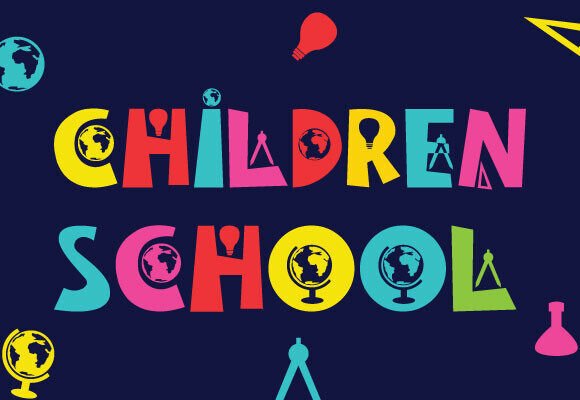
Introducing the Delightfully Enchanting “Children School” Font
The world of typography has just gotten a whole lot more playful with the introduction of the “Children School” Font. This charming typeface is specifically designed to capture the essence of playful innocence and childhood whimsy, making it an ideal asset for kids-centric and educational ventures. In this article, we’ll take a closer look at the inspiration behind this delightful font, its features, and how it can be used to add a touch of magic to your projects.
The Inspiration Behind “Children School” Font
The “Children School” Font takes inspiration from the youthful universe of handwritten letters and doodles, creating a delightful repertoire of characters that burst with merriment. The font’s creator aimed to mirror the charming vibrancy of a child’s imaginative mind, bringing a sense of wonder and excitement to the world of typography. By drawing from the carefree and creative world of childhood, this font embodies the spirit of imagination and playfulness.
Key Features of “Children School” Font
- Playful and Whimsical Design: The font features a unique and enchanting design that is sure to capture the attention of children and adults alike.
- Handwritten Style: The “Children School” Font has a handwritten style that gives it a personal and friendly feel, making it perfect for educational materials, children’s books, and other kids-centric projects.
- Variety of Characters: The font includes a wide range of characters, including letters, numbers, and punctuation marks, ensuring that you have everything you need to create engaging and interactive content.
- Easy to Read: Despite its playful design, the “Children School” Font is easy to read, making it suitable for use in a variety of applications, from children’s textbooks to educational posters.
Using “Children School” Font in Educational Ventures
The “Children School” Font is an excellent choice for educational ventures looking to add a touch of whimsy and fun to their materials. Whether you’re creating textbooks, workbooks, or educational posters, this font is sure to engage and delight your audience. Here are a few ways you can use the “Children School” Font in your educational projects:
Examples of “Children School” Font in Action
- Children’s Textbooks: Use the “Children School” Font to create engaging and interactive textbooks that will capture the attention of young learners.
- Educational Posters: Add a touch of whimsy to your educational posters with the “Children School” Font, making learning fun and exciting for kids.
- Worksheets and Activity Sheets: Use the font to create worksheets and activity sheets that are both fun and educational, helping kids to learn and develop new skills.
Celebrating Childhood Creativity with “Children School” Font
The “Children School” Font is more than just a typeface – it’s a celebration of childhood creativity and imagination. By using this font in your projects, you’re helping to bring a sense of wonder and excitement to the world of learning. Here are a few ways you can use the “Children School” Font to celebrate childhood creativity:
The “Children School” Font is a delightful and enchanting typeface that is sure to bring a touch of magic to your projects. With its playful and whimsical design, this font is perfect for kids-centric and educational ventures looking to add a sense of wonder and excitement to their materials. By celebrating childhood creativity and imagination, the “Children School” Font is an excellent choice for anyone looking to create engaging and interactive content for kids.
Final Thoughts
In conclusion, the “Children School” Font is a charismatic typeface that embodies the spirit of childhood creativity and imagination. With its unique and enchanting design, this font is sure to capture the attention of kids and adults alike, making it an excellent choice for educational ventures and kids-centric projects. So why not celebrate the beloved innocence of childhood creativity with this delightful font?